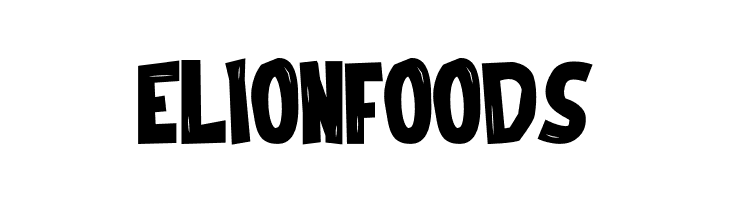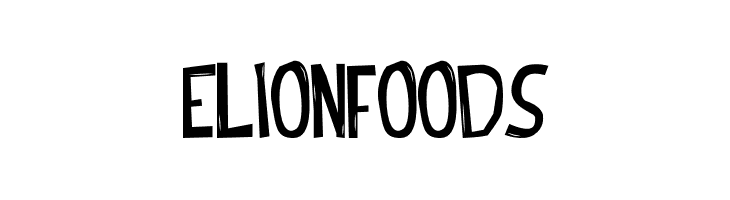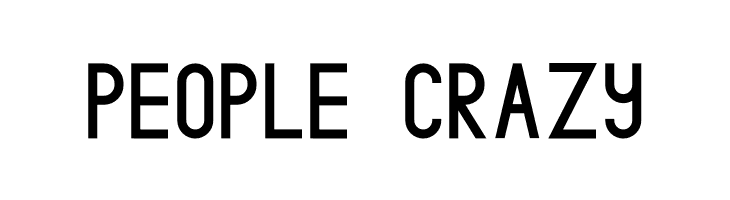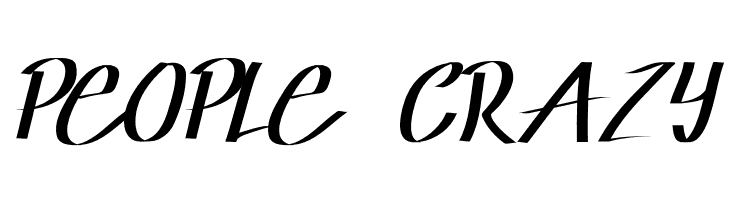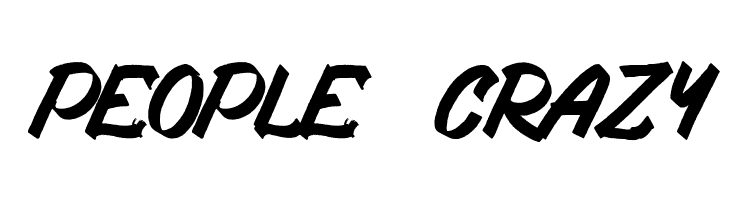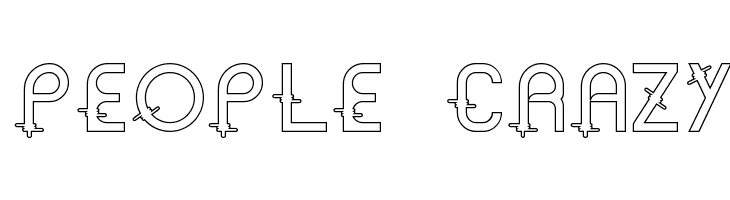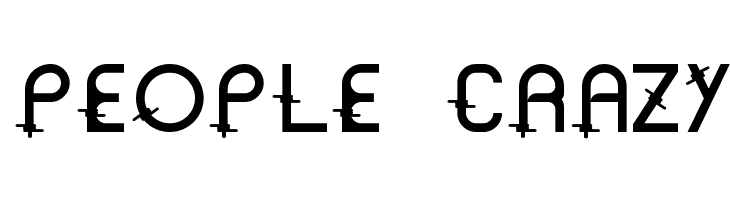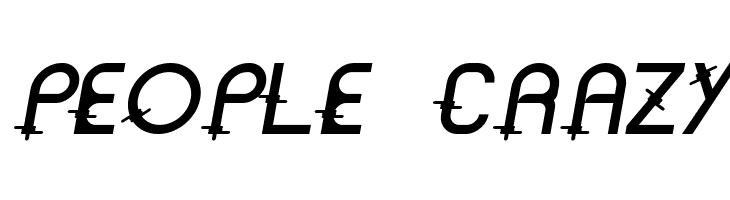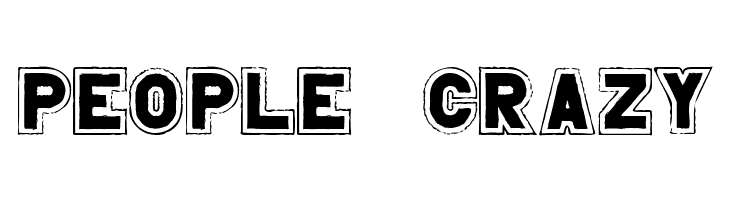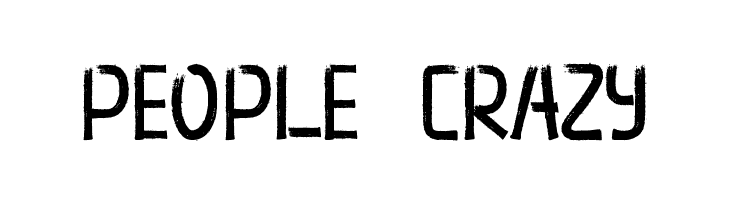
Casual handwritten script with smooth, rounded strokes and a friendly appearance.
Elegant modern serif with high contrast.
A bold, brush-style font with dynamic, hand-painted strokes.
A dynamic, handwritten font with fluid strokes and a casual, artistic style.
A casual, handwritten font with smooth, slanted strokes.
A dynamic and fluid cursive script font with elegant, interconnected letters.
A modern, geometric font with tall, narrow uppercase letters and balanced lowercase characters.
A dynamic, handwritten font with fluid, expressive characters.
A bold, brush-style font with high contrast and dynamic strokes.
A playful, bold font with thick, uneven strokes and a whimsical charm.
A bold, textured font with a hand-drawn, brush-like appearance.
A rough, hand-drawn font with a dynamic brush-like texture.
A bold, distressed font with a vintage, rugged style.
A bold, rounded font with a blocky, playful style.
A modern, geometric font with rounded edges and a bold style.
A geometric and artistic font with circular motifs and intricate designs.
A bold, decorative font with geometric shapes and barbed elements.
A modern italic font with rounded and barbed accents, offering a dynamic and edgy style.
A decorative outline font with rounded and barbed elements for a unique, artistic look.
A bold, geometric font with a modern and edgy style.
A bold, geometric outline font with a modern, futuristic style.
A modern, geometric font with rounded edges and uniform stroke width.
A modern, elegant font with thin, flowing strokes and artistic flair.
A bold, dynamic script font with a handwritten appearance.
A bold, handwritten-style font with dynamic, slanted characters.
A modern, sans-serif font with a clean and slightly condensed style.
A bold, modern typeface with thick, uniform strokes and clean lines.
A dynamic, flowing script font with elegant curves and medium contrast.
A modern, geometric sans-serif font with medium contrast and balanced proportions.
A bold, condensed font with strong, uniform strokes ideal for impactful headlines.
A dynamic calligraphic font with elegant, flowing strokes and medium contrast.
A modern, geometric sans-serif font with a sleek and uniform appearance.